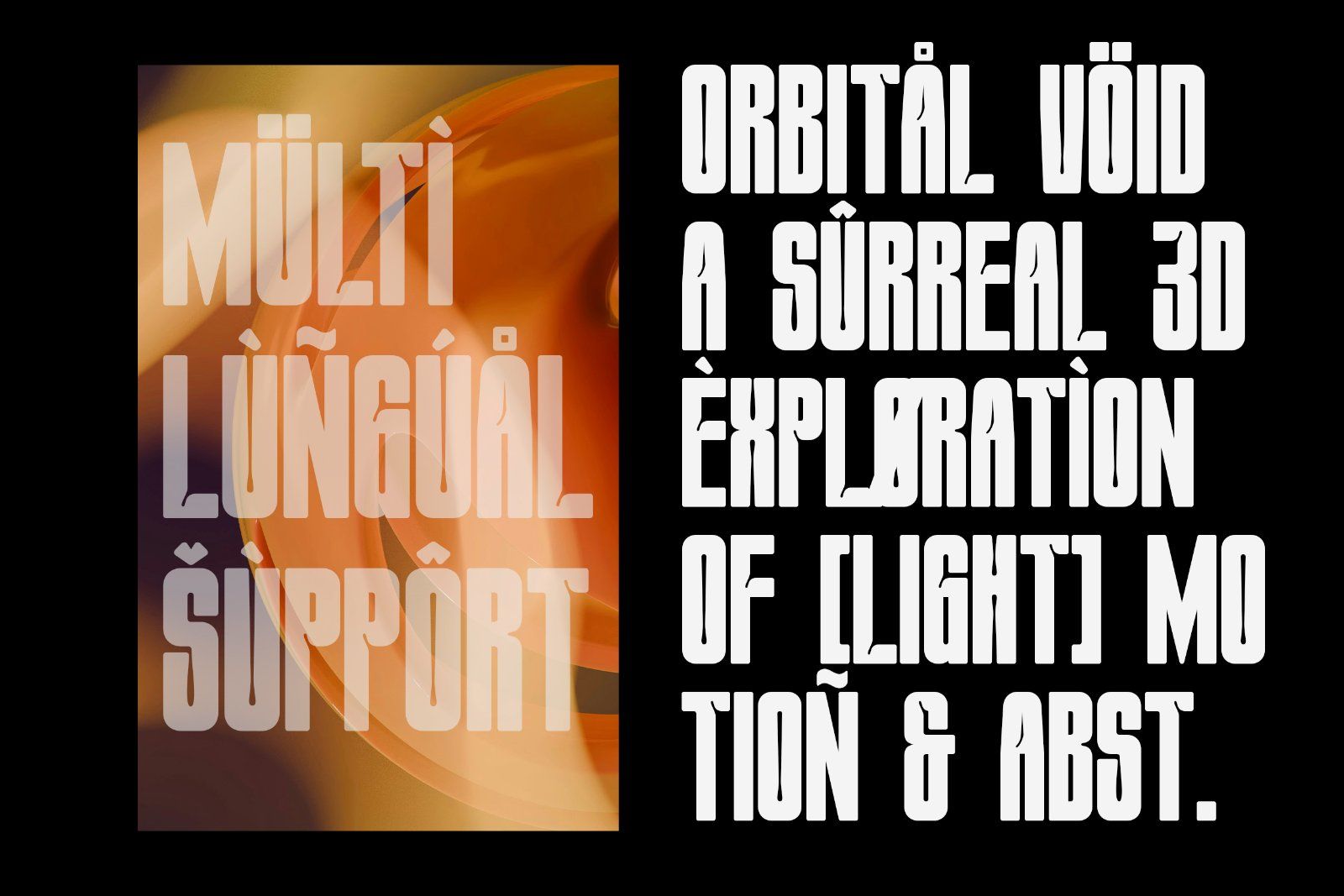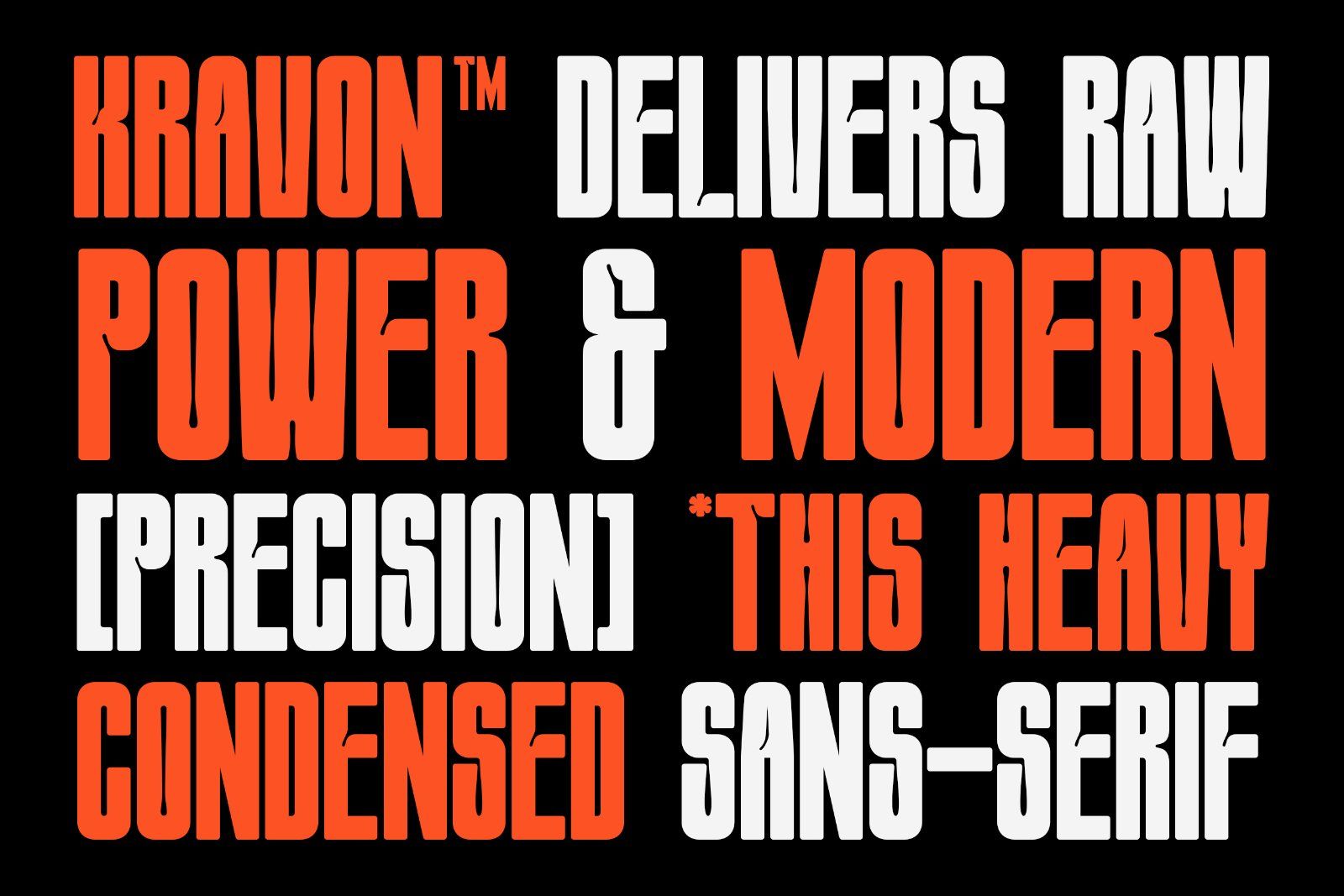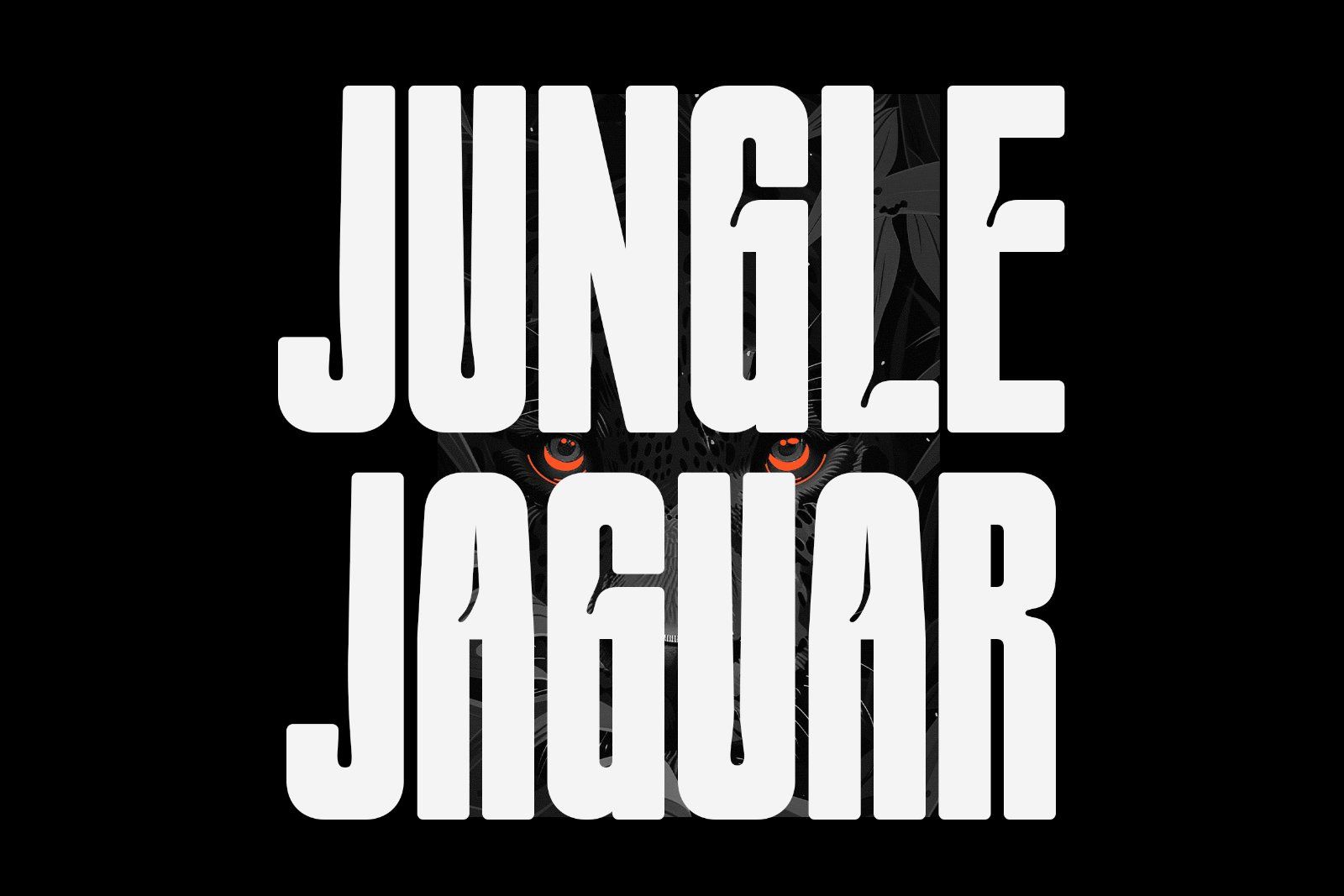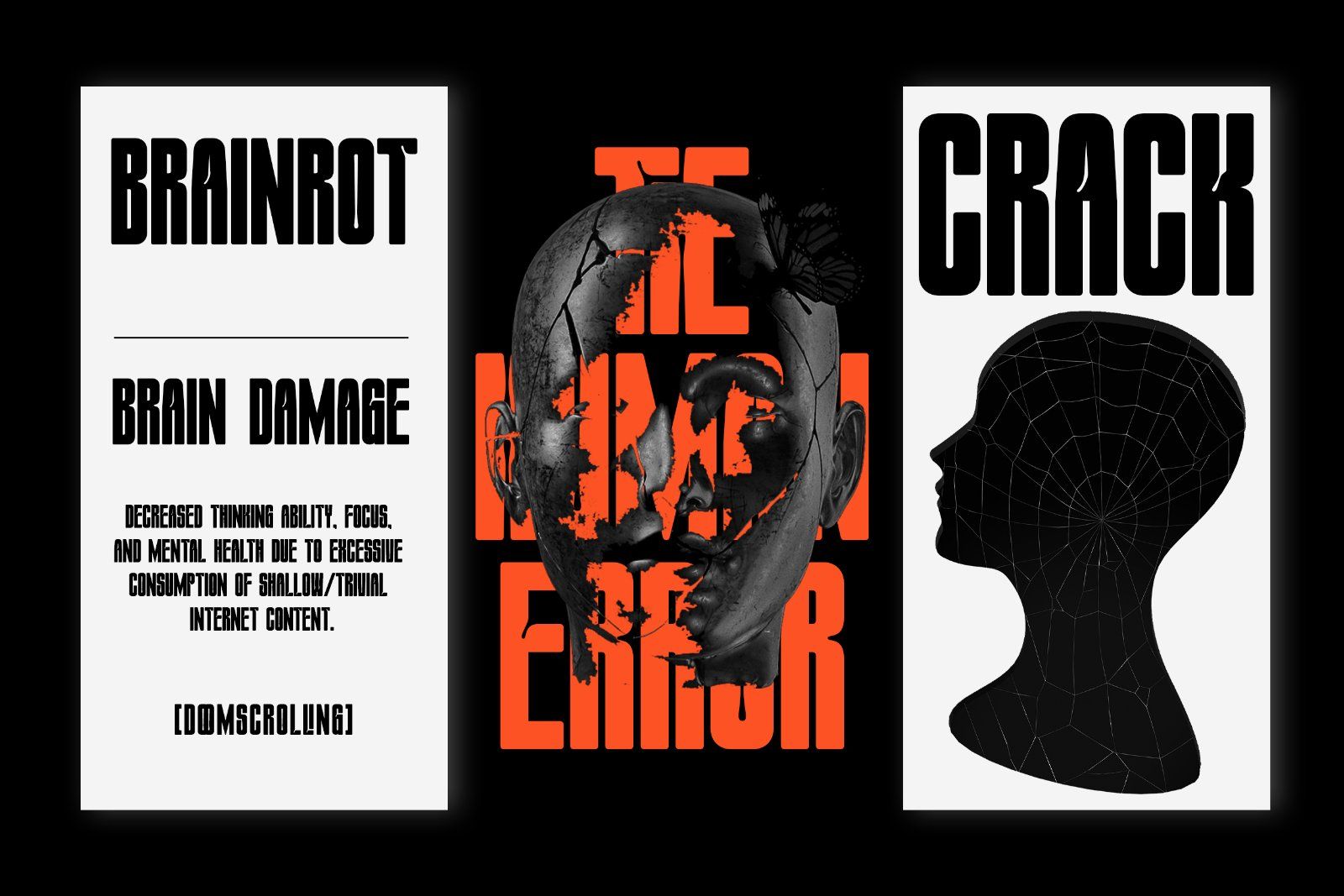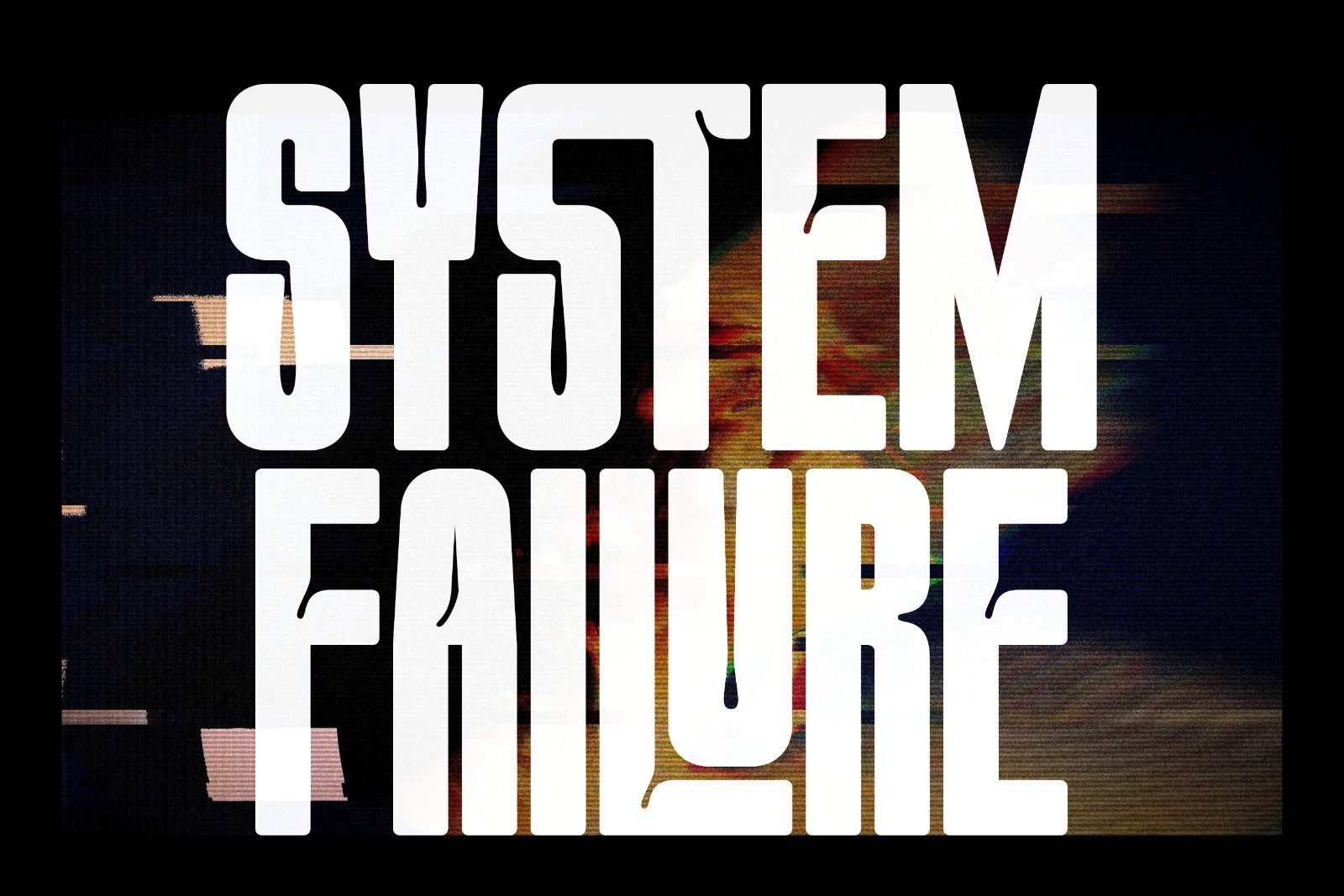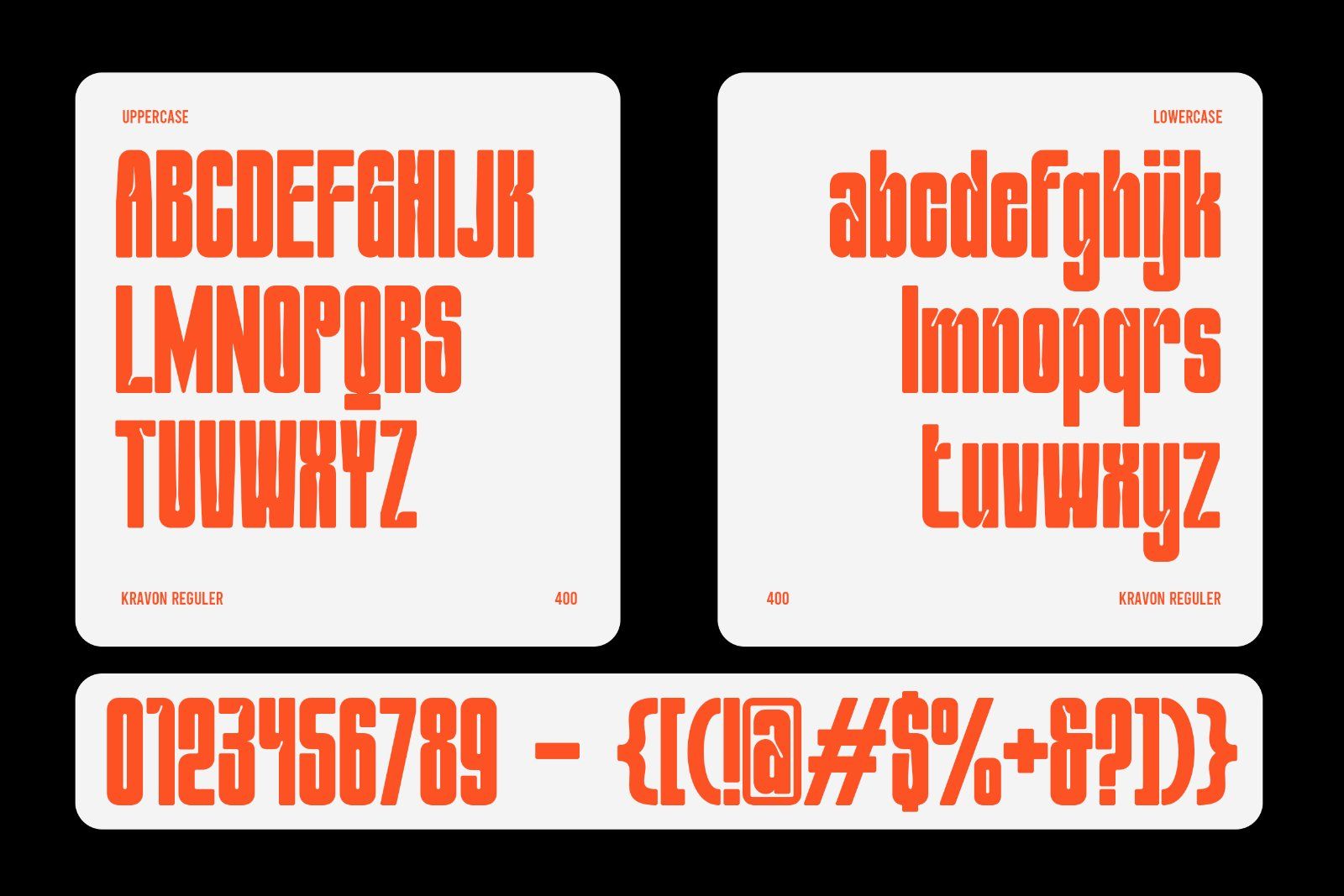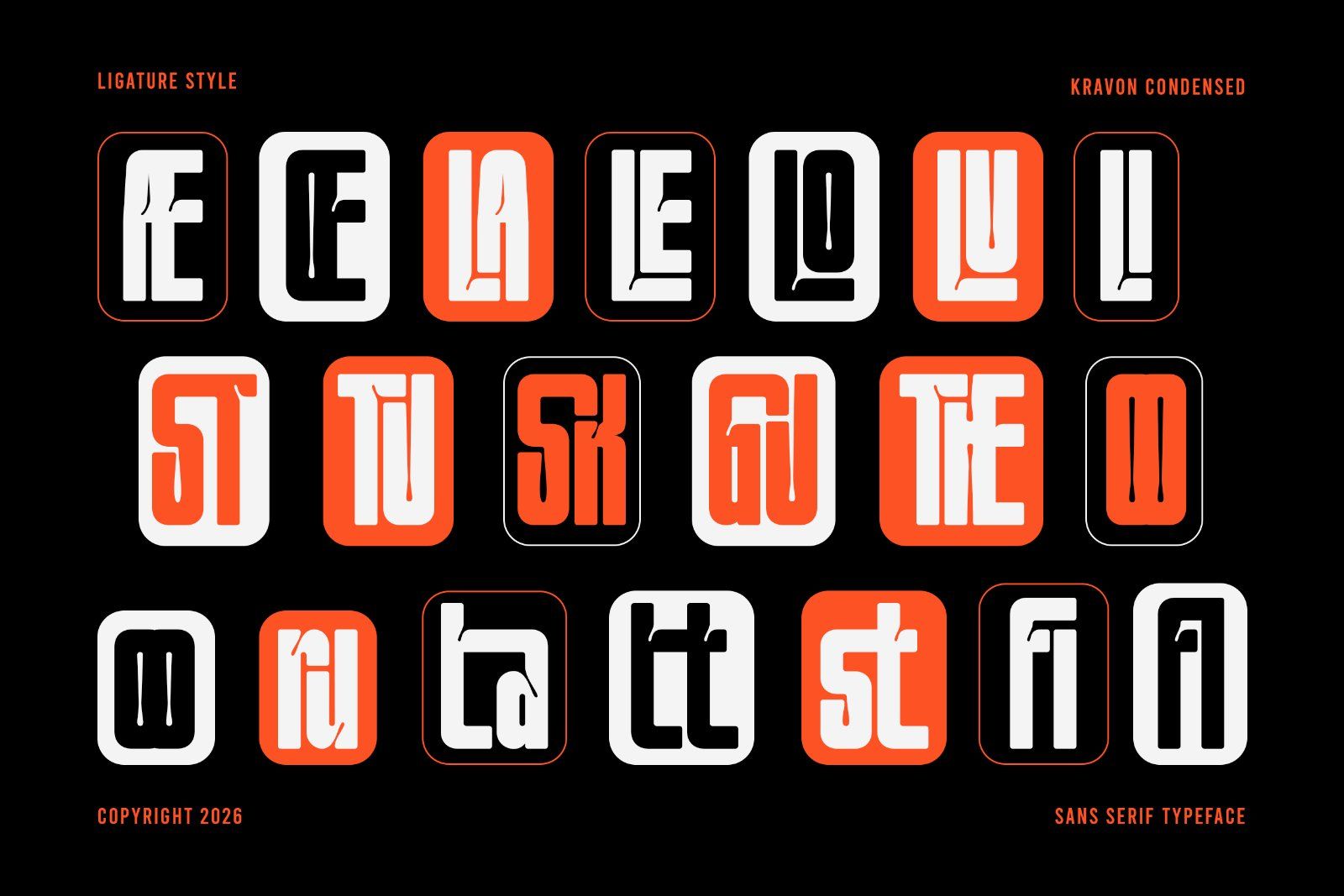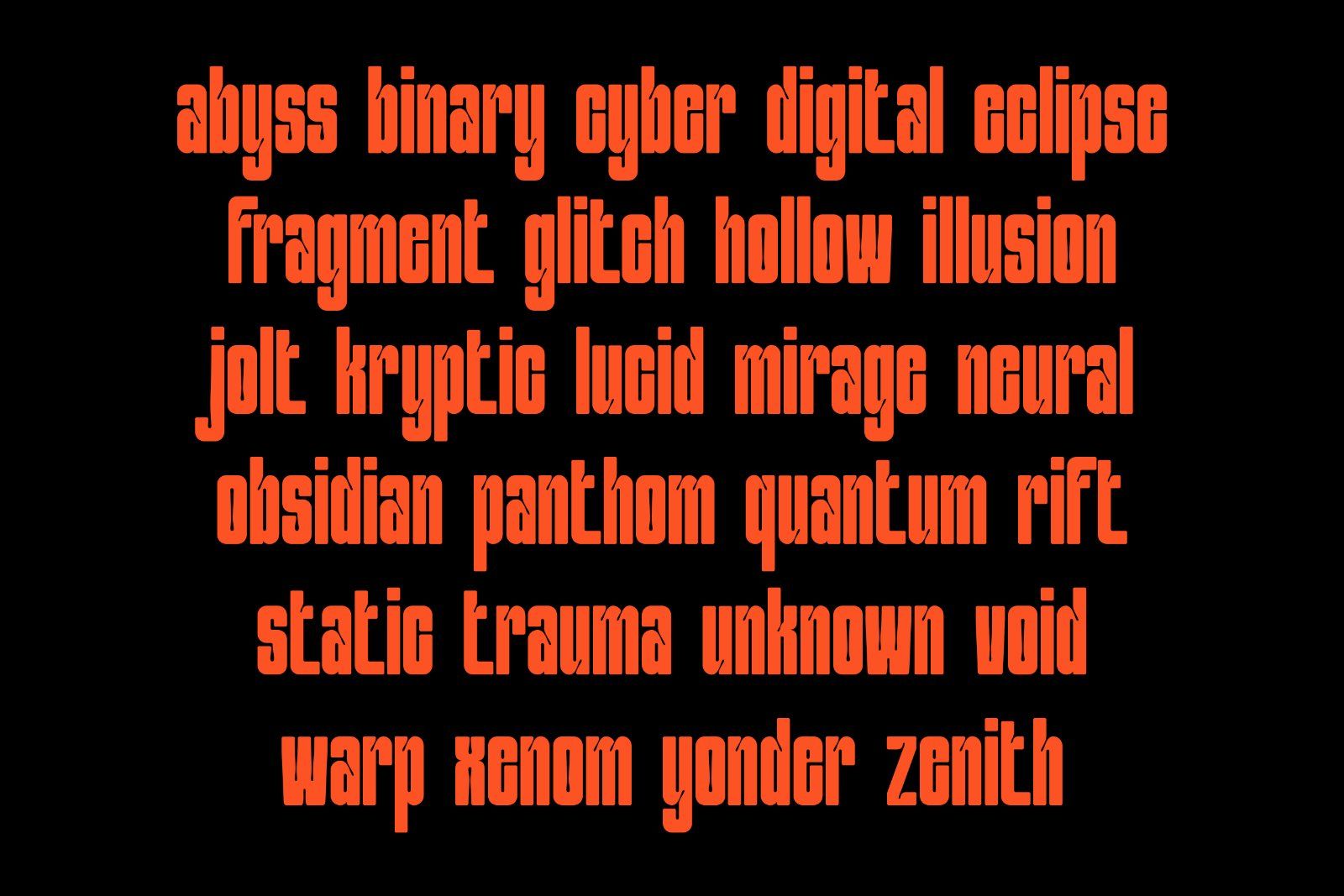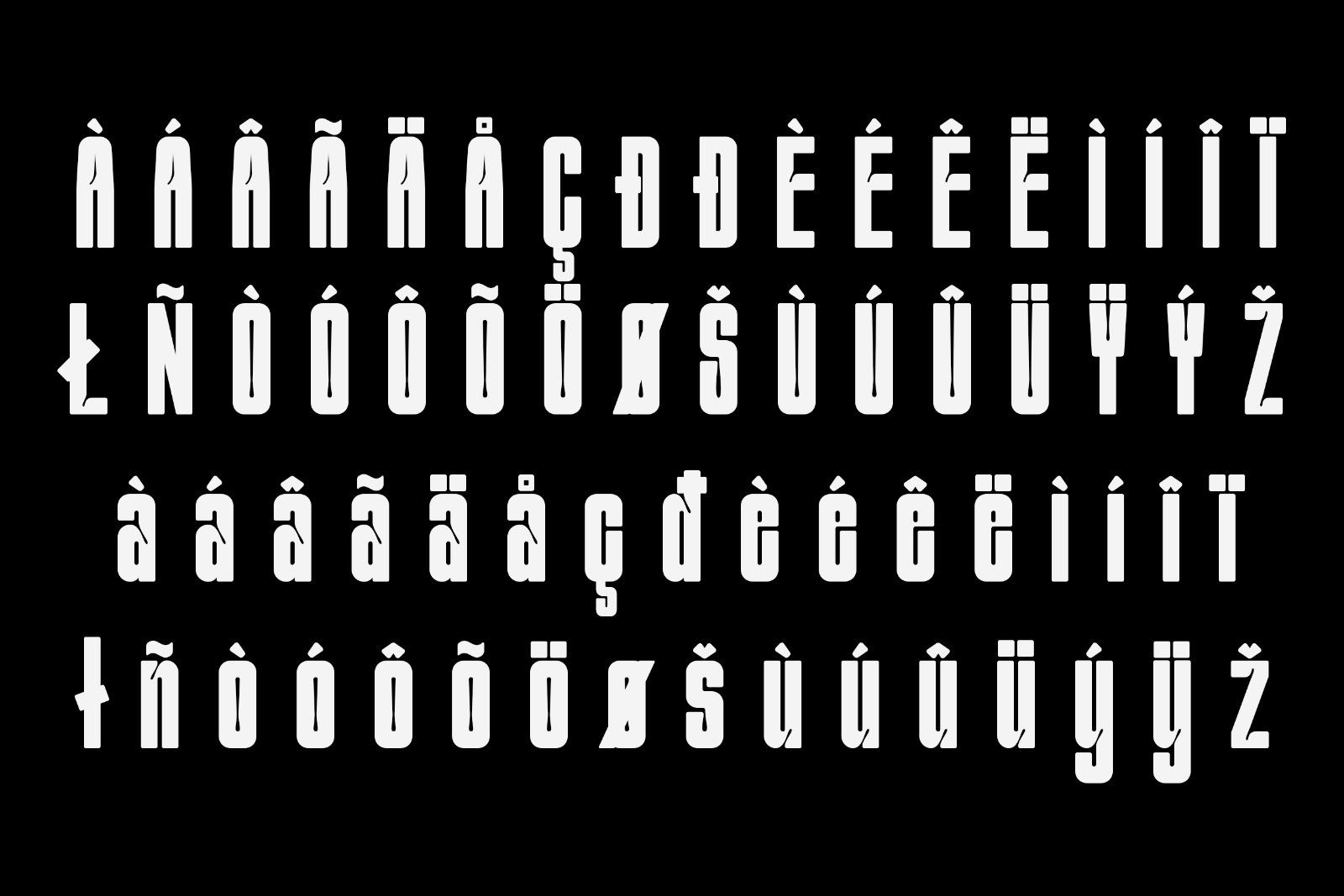
Kravon Condensed is a bold condensed display sans serif typeface crafted for strong visual communication and modern corporate aesthetics. Designed with tall proportions, clean geometry, and distinctive character details, this font delivers a confident and professional presence while maintaining a stylish contemporary feel.
Its condensed structure allows headlines and branding layouts to appear powerful, compact, and highly impactful—making it an excellent choice for editorial design, advertising, posters, branding systems, packaging, magazine covers, and modern visual identities.
Kravon Condensed combines precision, balance, and boldness into a versatile display typeface suitable for both professional and creative projects.
✨ Perfect for:
• Corporate branding
• Editorial headlines
• Poster design
• Magazine covers
• Advertising campaigns
• Fashion branding
• Packaging design
• Logo design
• Presentation graphics
• Modern visual identity systems
✨ Features:
• Uppercase & lowercase
• Bold condensed display style
• Clean modern structure
• Unique ligatures
• Strong headline appearance
• Professional modern aesthetic
Kravon Condensed is ideal for designers seeking a bold and modern typeface that feels authoritative, clean, and visually memorable across print and digital projects.